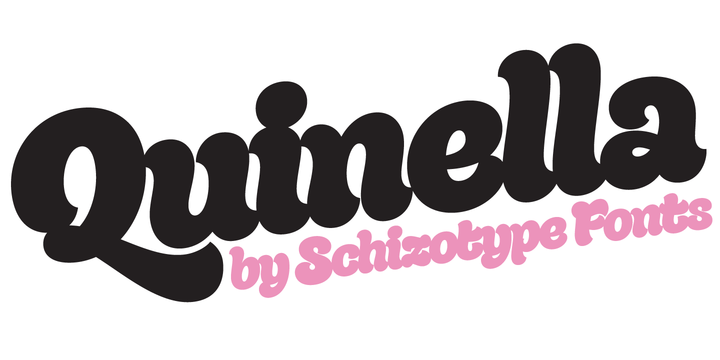
Quinella Font Family
Plumper than a misguided Z-lister’s dodgy lip job, this is Quinella, named after the cheffy scoops of ice cream and the like, quinelles. It’s a cute, fat script with a seventies vibe but a personality all of its own. It’s non-connecting in the usual sense, but the letters overlap to make the white space as tiny as possible. Ligatures (standard and discretionary) make smoother solutions for quite a few pairs and trios, and every upper case letter has a more exuberant swash alternate. The contextual alternates feature substitutes in an alternate t for a better fit with certain letters.
Fonts don’t come much more voluptuous than this. The full-fat, creamy appearance makes it perfect for food packaging, but don’t let it end there; it’ll make memorable logos, unmissable headlines, and posters with more punch.